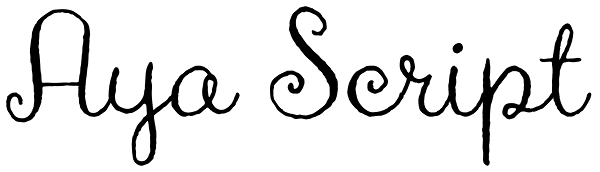
Aya Script
Be connected. Create ribbons of flowing text with Aya Script Ribbons. Warm, cheerful and handlettered in pen & ink, Aya Script Ribbons is an OpenType font with a healthy collection of alternates & ligatures. The ribbons automatically connect and...
Aya Script
Aya Script Ribbons